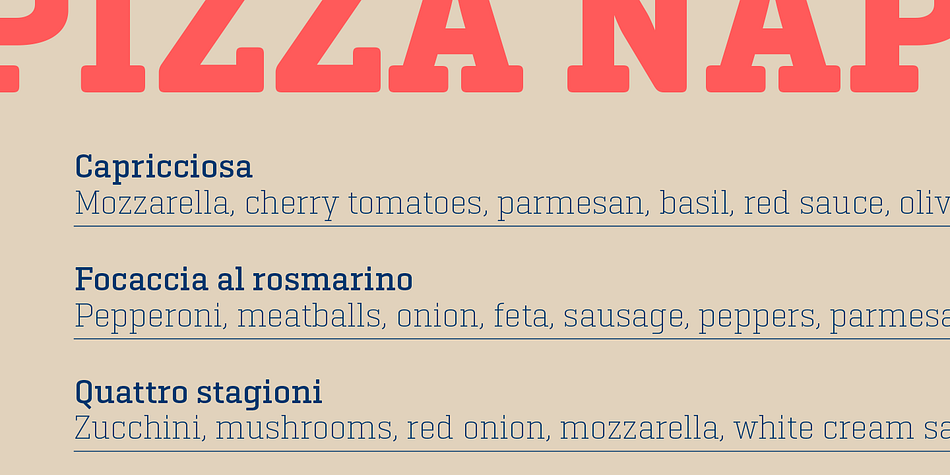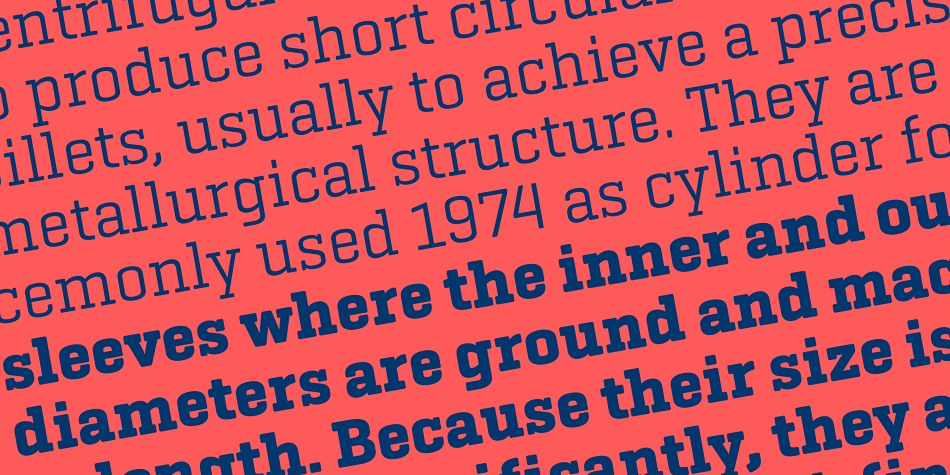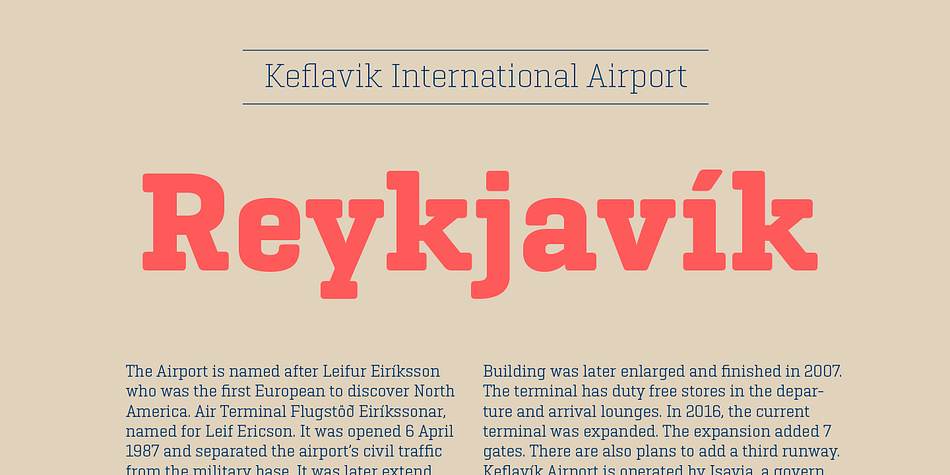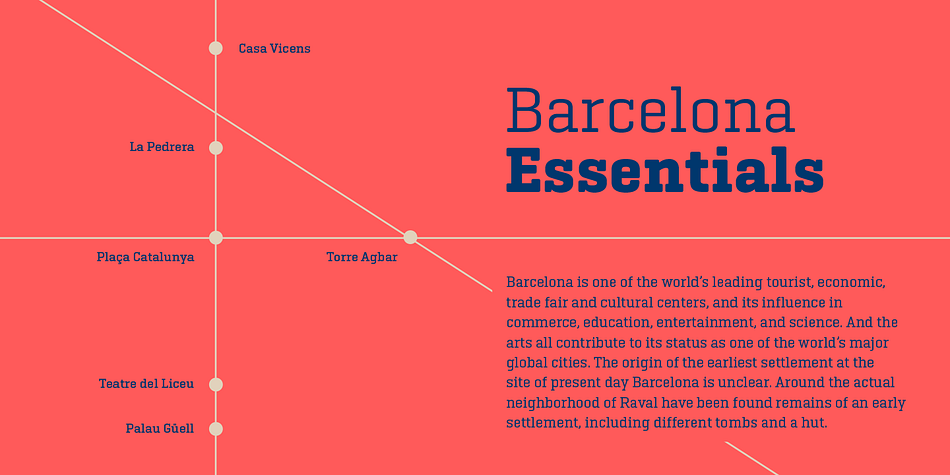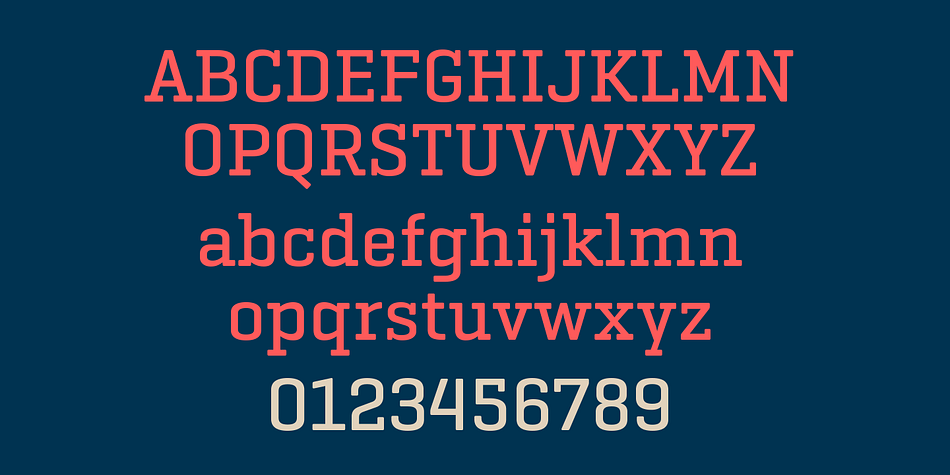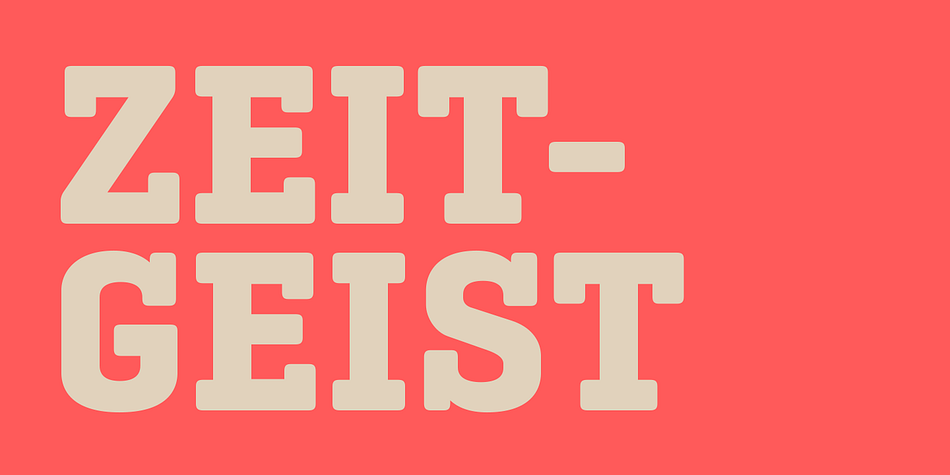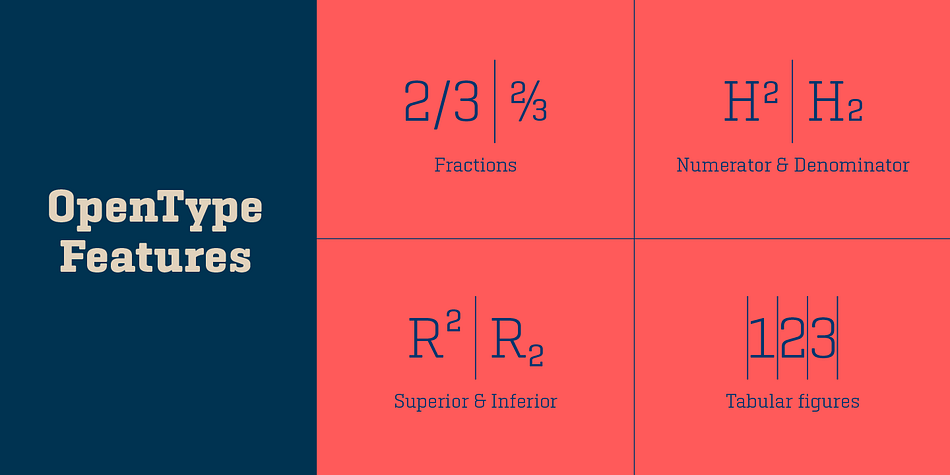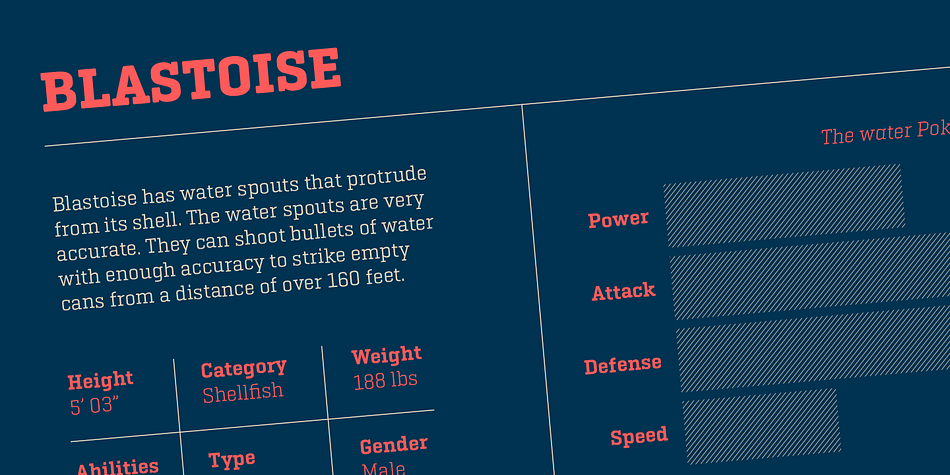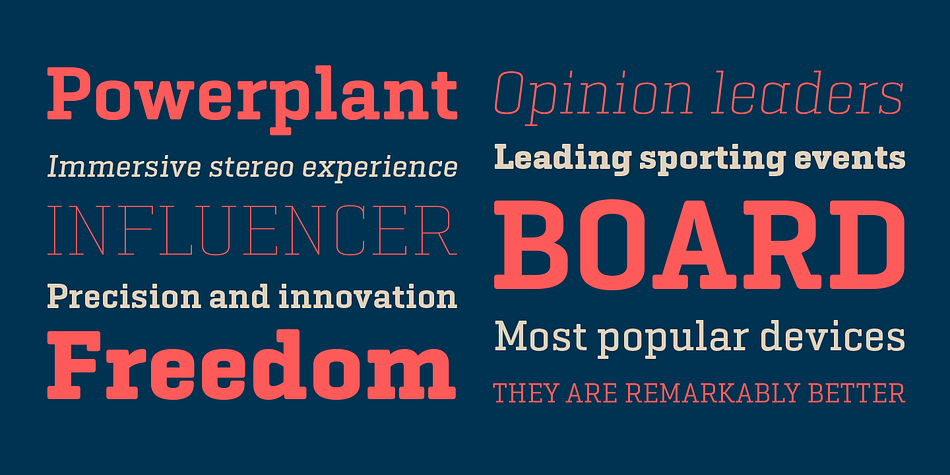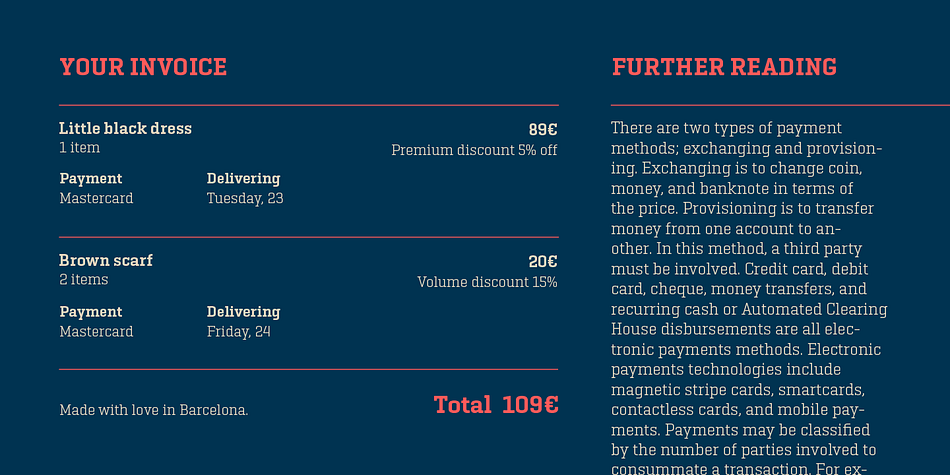
Designed by Eduardo Manso, Geogrotesque Slab is a slab serif font family. This typeface has fourteen styles and was published by Emtype Foundry.
Geogrotesque Slab is the ideal companion of the popular Geogrotesque. The challenge was to achieve a fully recognizable font that works as part of the existing family, for that reason the Slab version conveys the same message in a different way. The new font remains clean and tech with a human touch yet provides a new security, confidence, and firmness thanks to the serifs. This new addition, combined with Geogrotesque, Geogrotesque Stencil and Geogrotesque Condensed Series provides even more design options and now there’s a Geogrotesque for every need. The type family consists of 14 styles 7 weights (Thin, UltraLight, Light, Regular, Medium, SemiBold and Bold) plus italics. It is available for desktop and WebFont and includes ligatures, tabular figures, fractions, numerators, denominators, superiors and inferiors with support for Central and Eastern European languages.